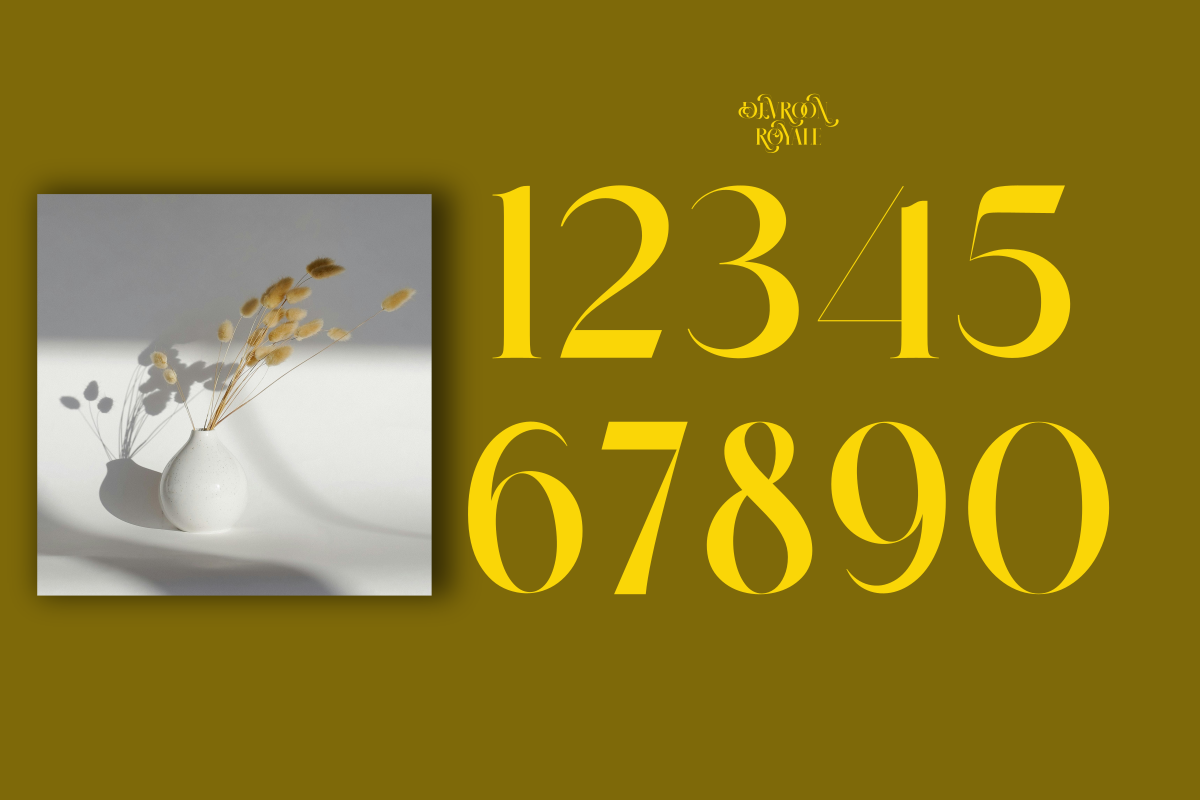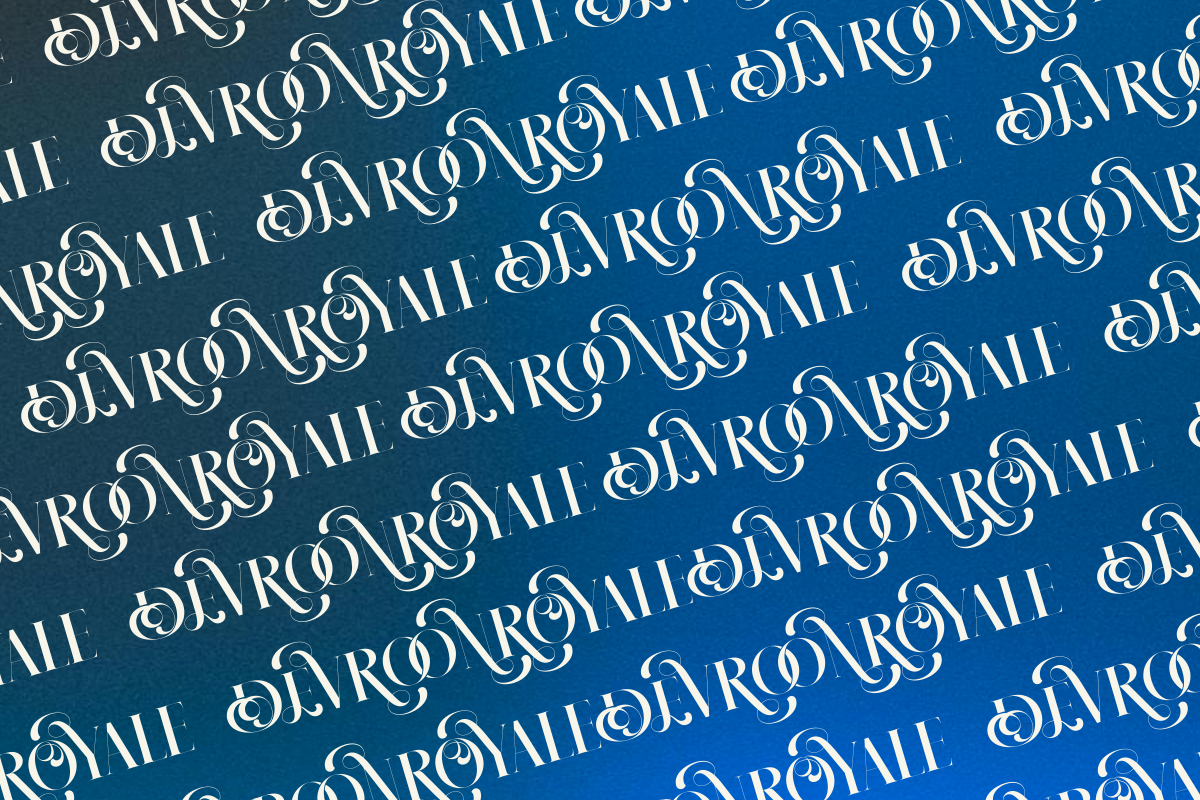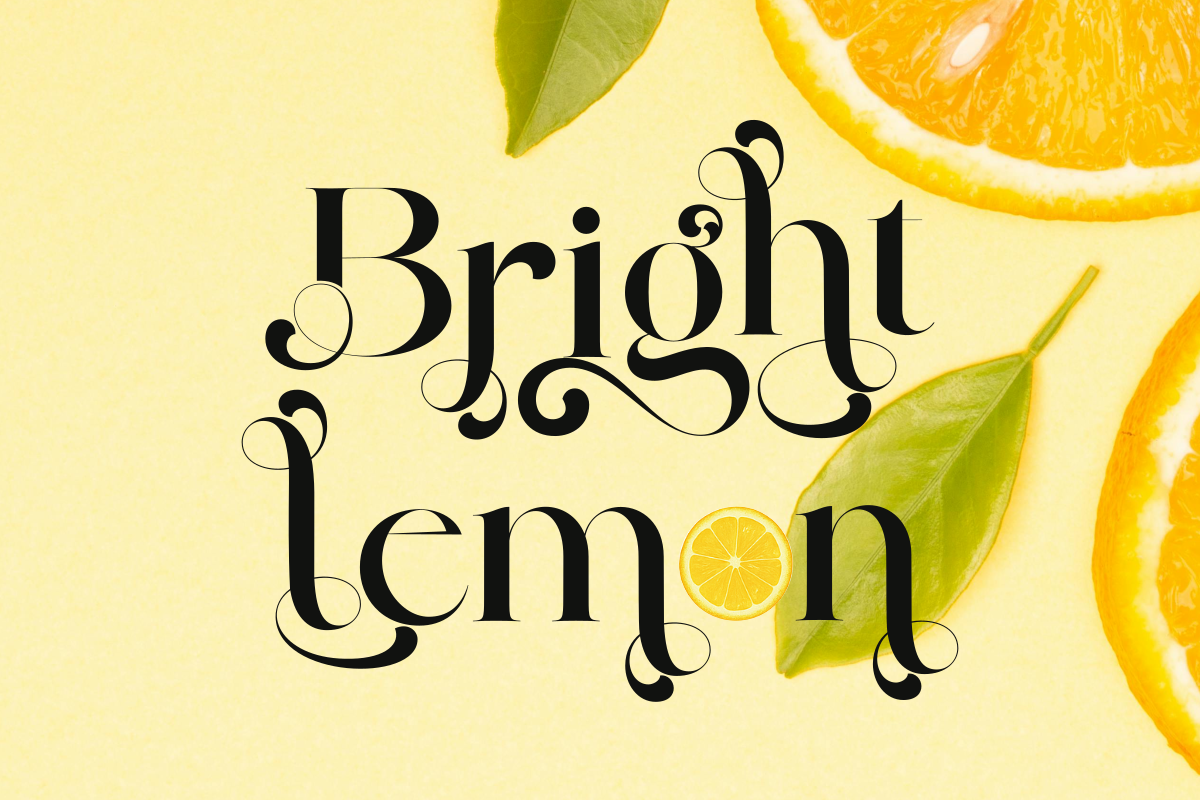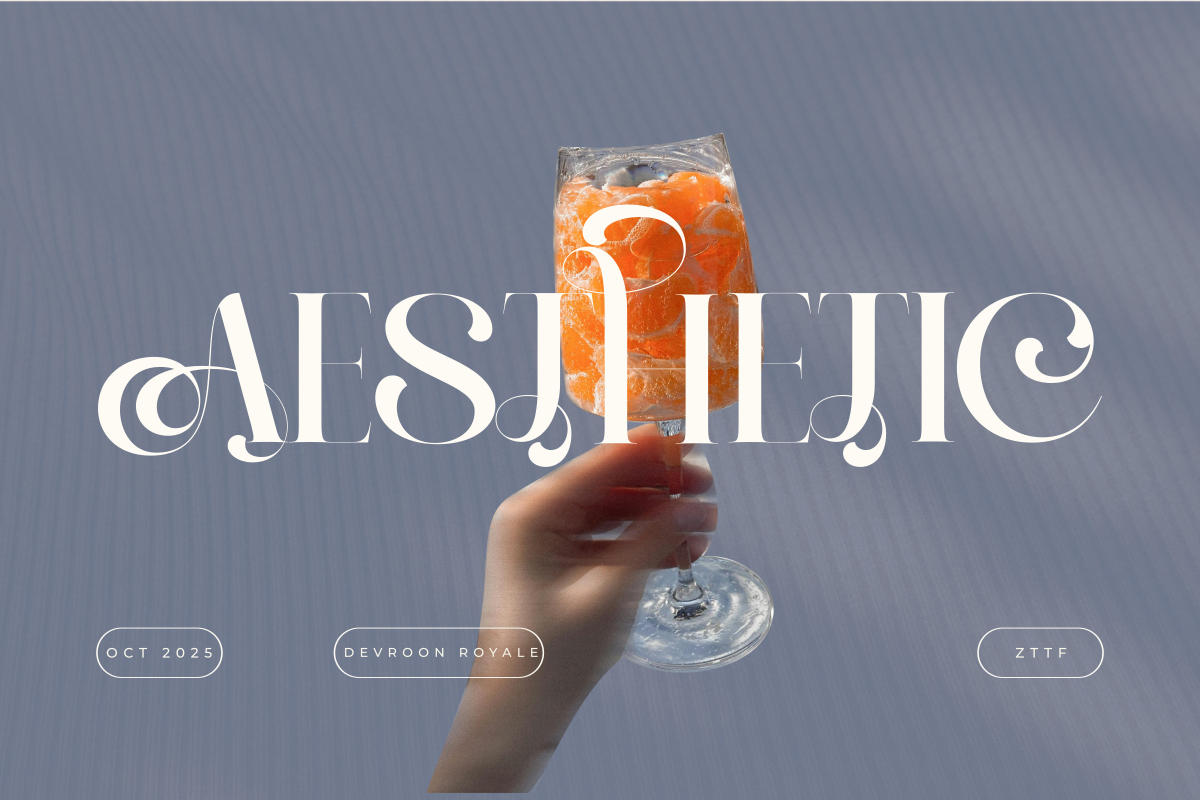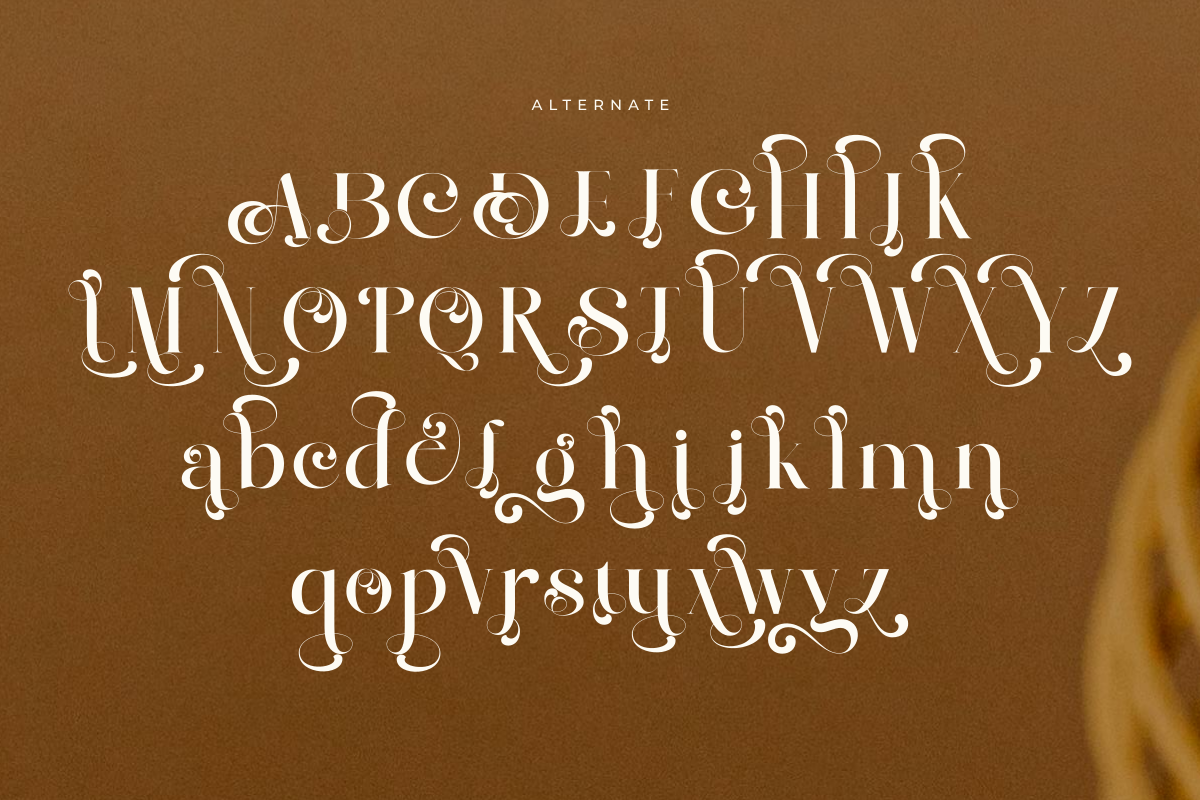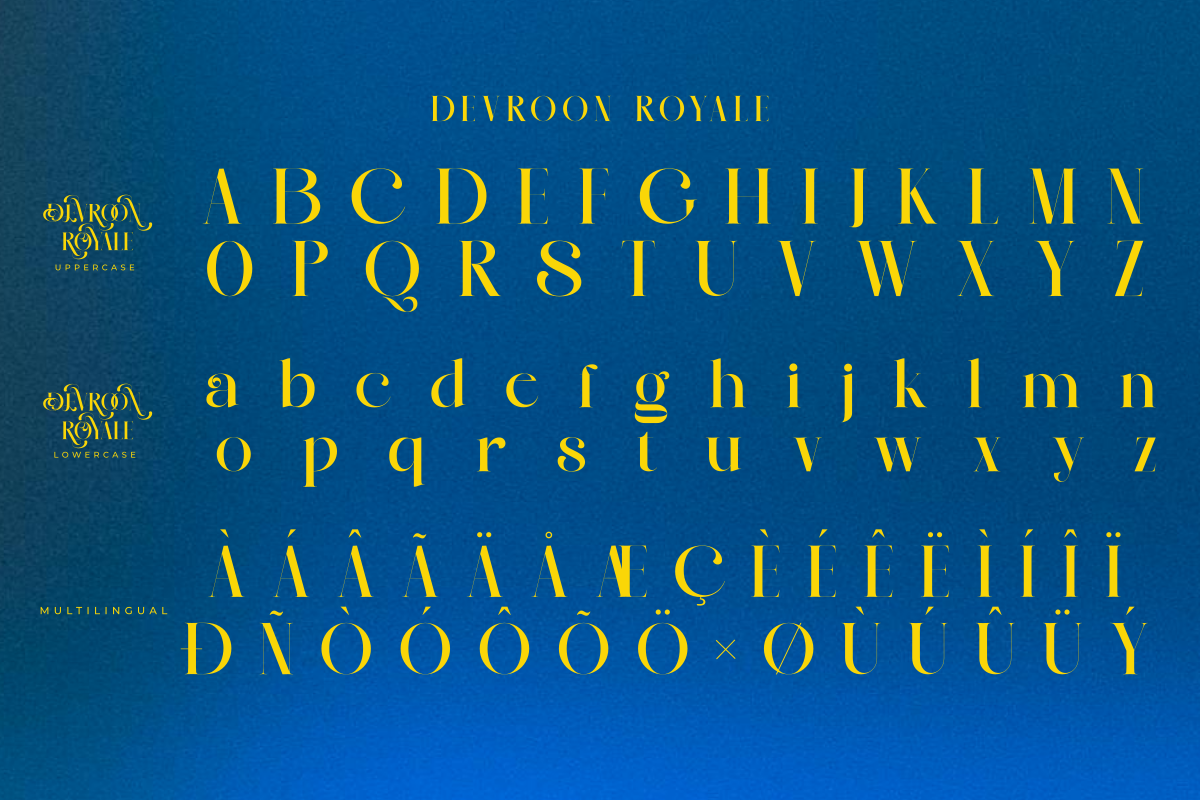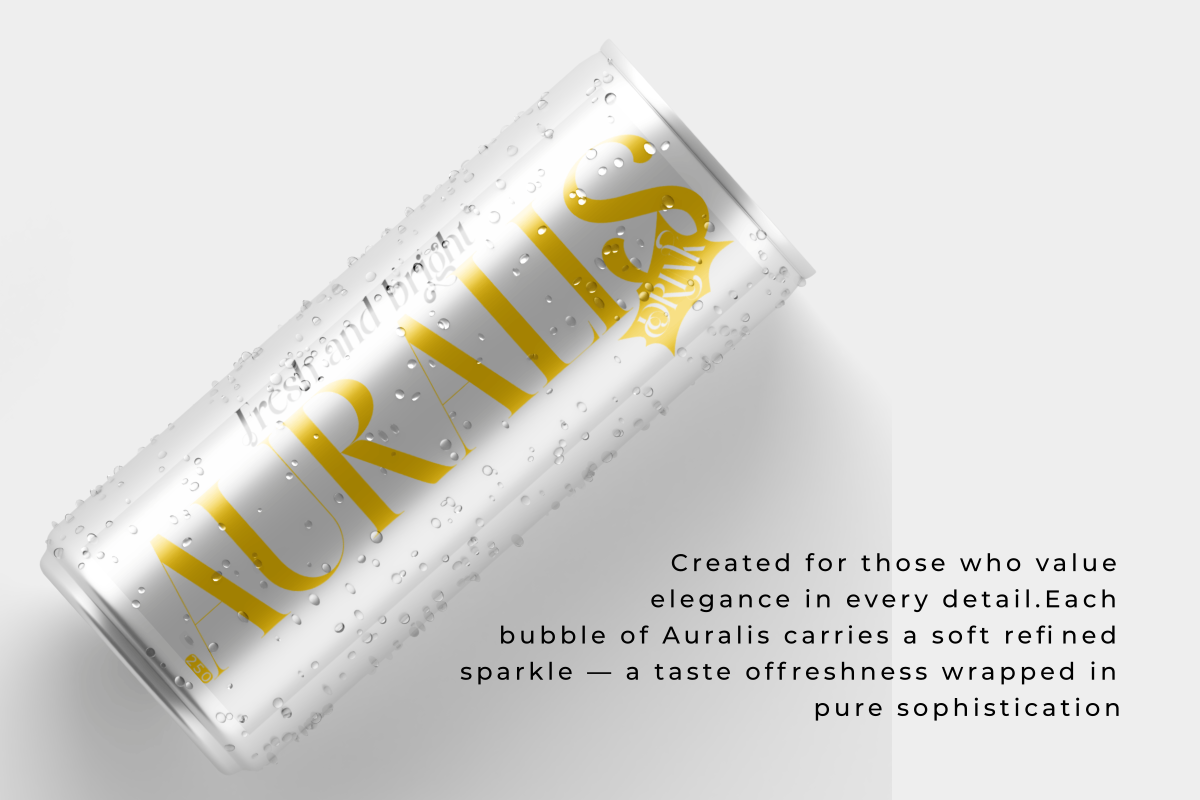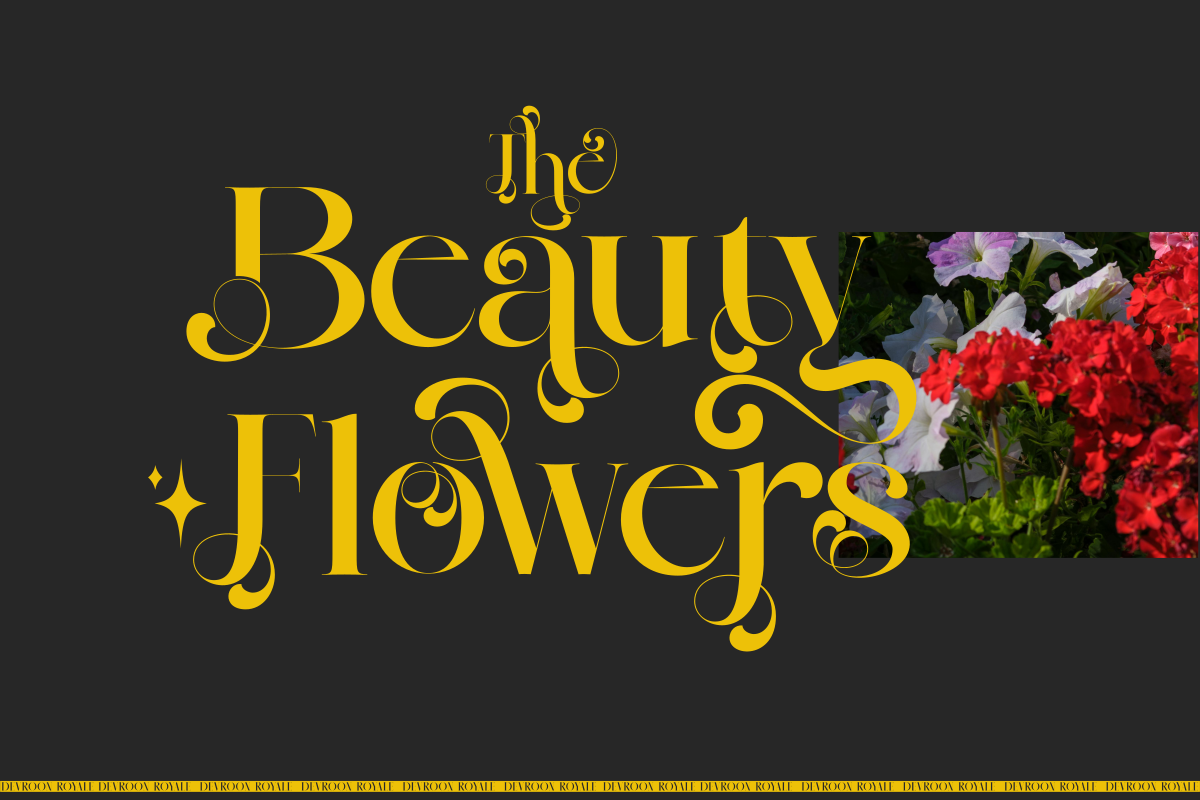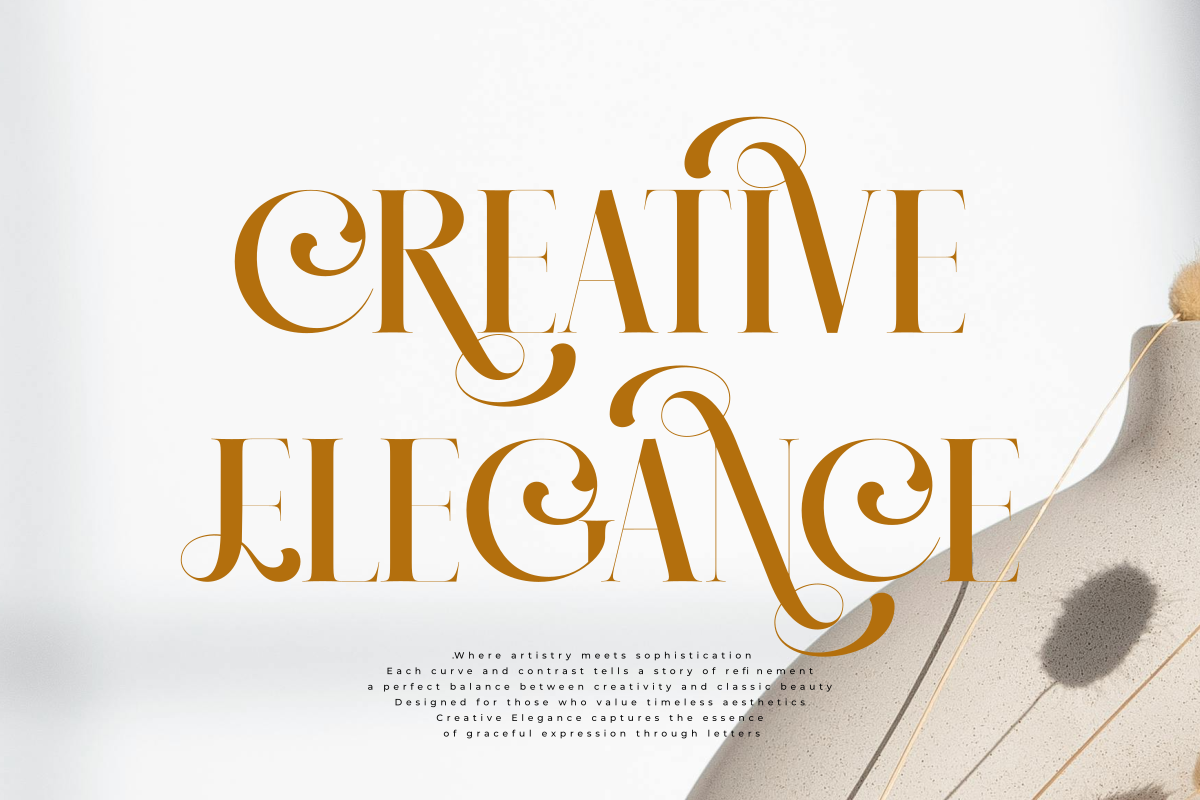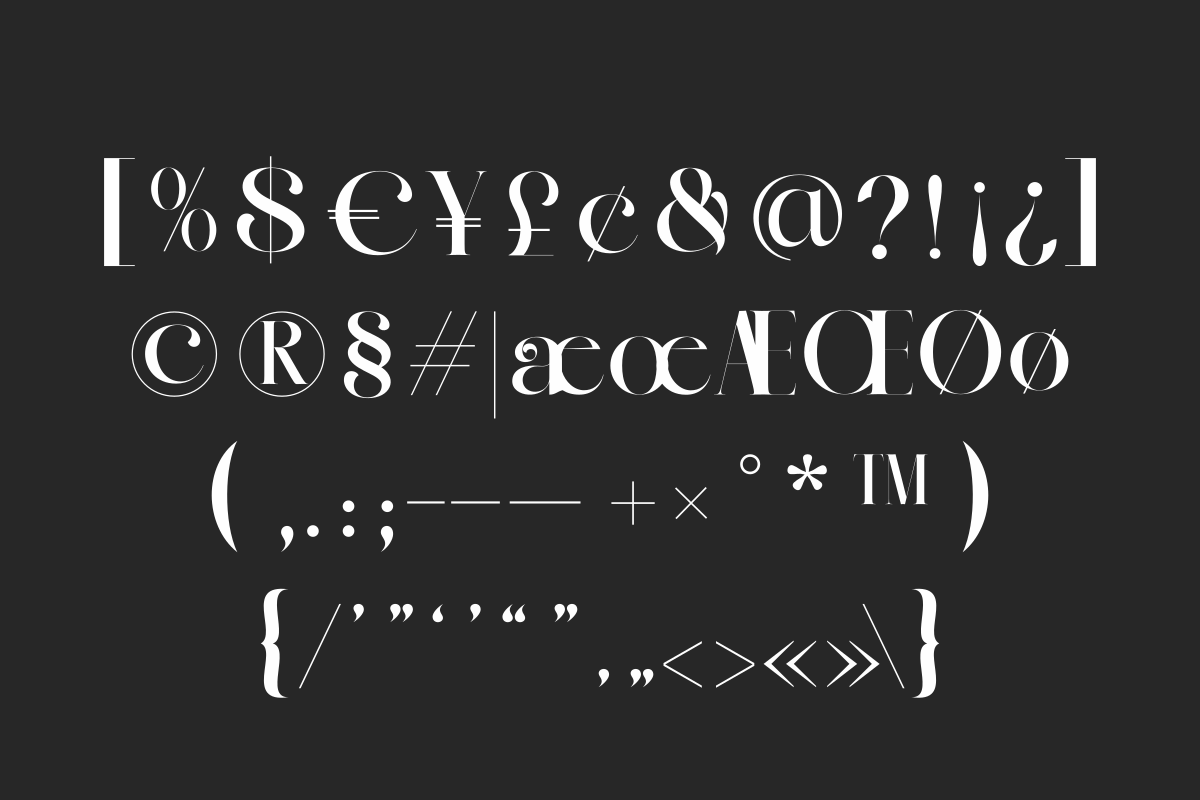
Devroon Royale
Devroon Royale is a timeless serif typeface that embodies sophistication and grace. With its refined contrast between thick and thin strokes, elegant curves, and stately proportions, Devroon Royale brings a sense of classic prestige to modern design. Each letter is carefully crafted to balance strength and delicacy, making it perfect for luxury branding, editorials, invitations, and high-end packaging